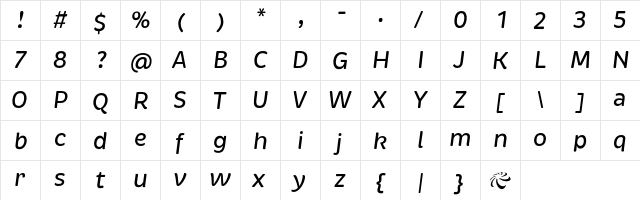
Brevia MediumItalic Regular
| Foundry | Hannes von Dn |
| Designer | Hannes von Dn |
Design Context for Brevia MediumItalic Typeface
Brevia MediumItalic offers clean, dependable letterforms without strong stylistic allegiance, making it a practical choice for designers who need flexibility. The slanted form adds forward momentum and visual energy.